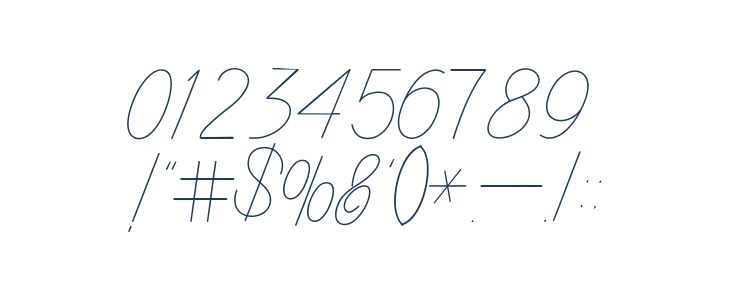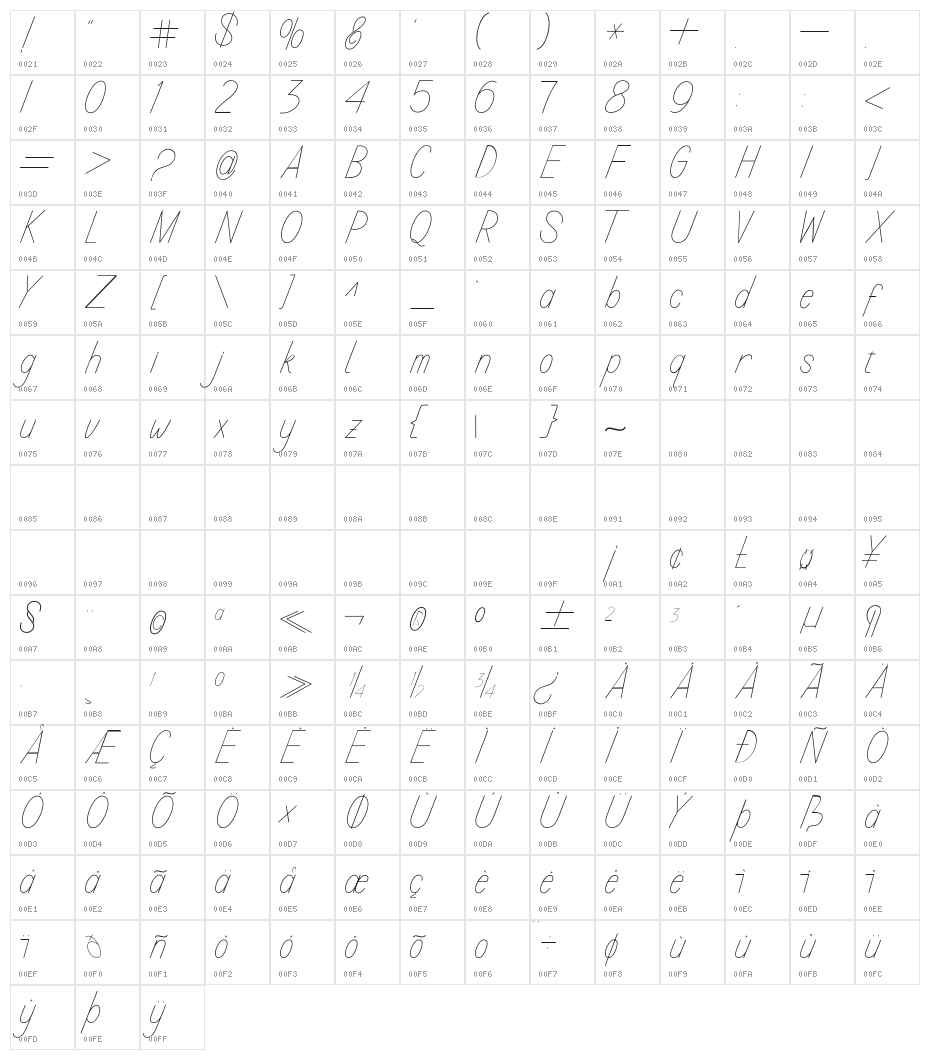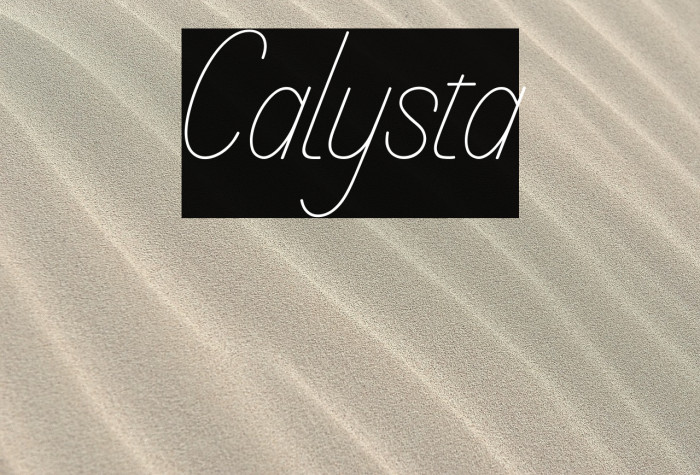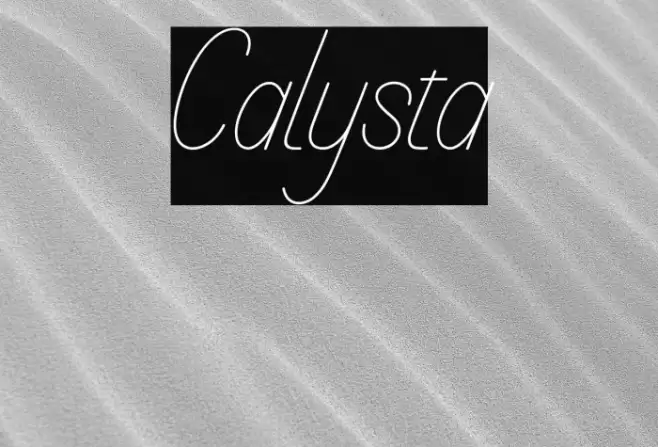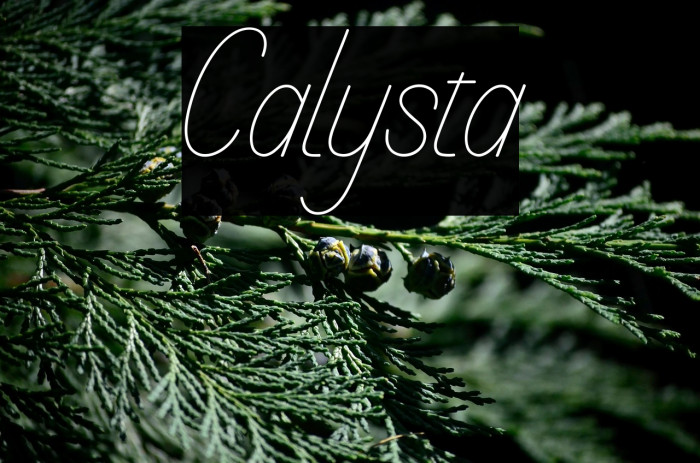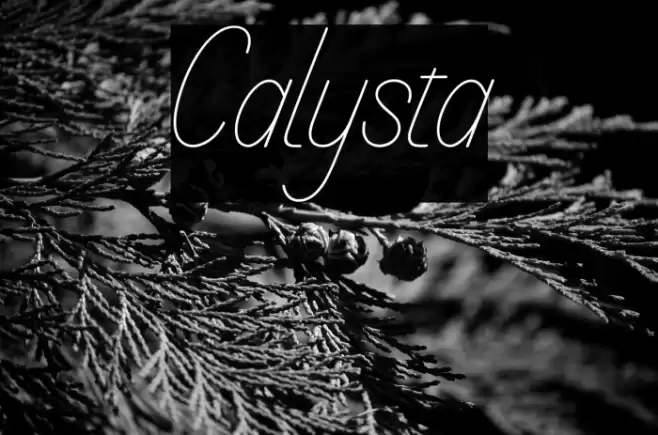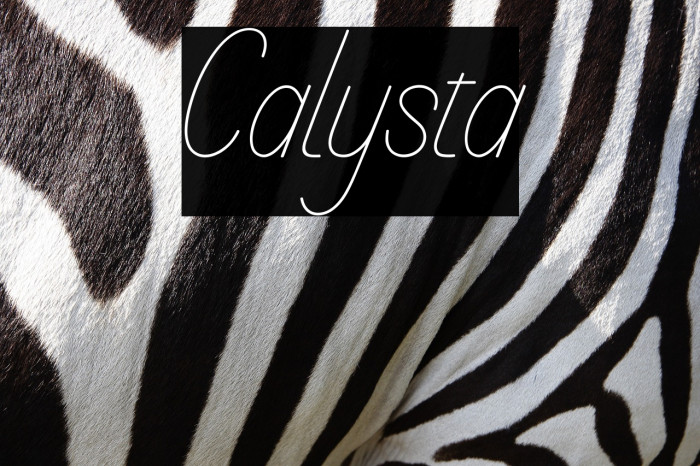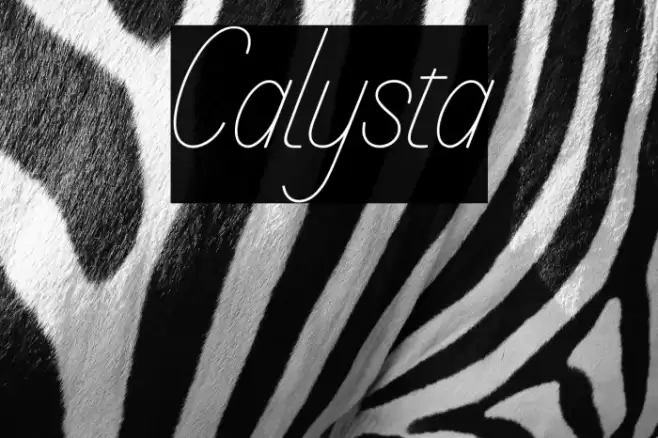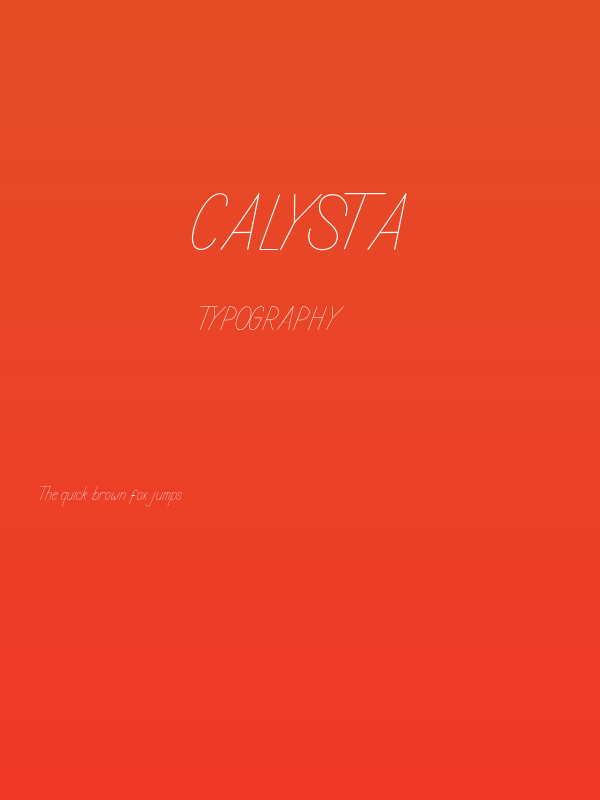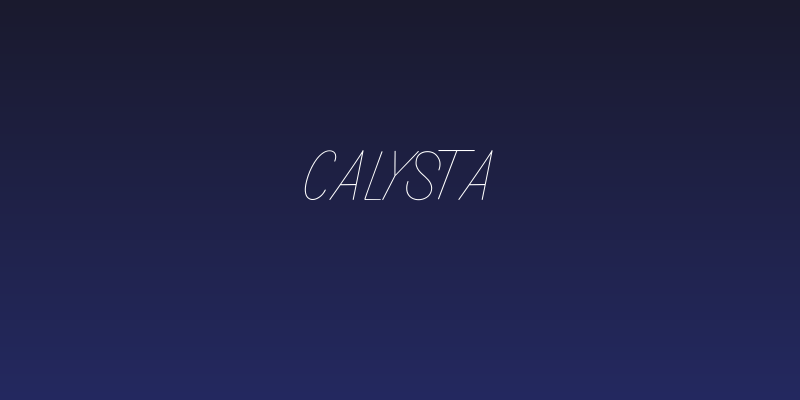
Calysta Font
Calysta Description
This font features a sleek, modern script style with a delicate and elegant touch. The characters are crafted with thin, consistent strokes that give it a refined and sophisticated appearance. The uppercase letters are tall and slightly narrow, while the lowercase letters maintain a smooth, flowing connection, enhancing the script-like quality. The numerals are clear and legible, matching the overall aesthetic of the font. Special characters are included, maintaining the same thin, elegant lines. This font is perfect for projects that require a touch of elegance and modernity, such as wedding invitations, branding, and high-end product packaging.
| Proposed Projects | Ideal for wedding invitations, luxury branding, and elegant product packaging. |